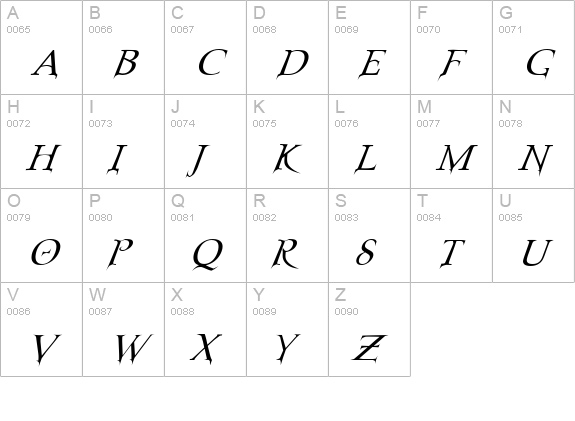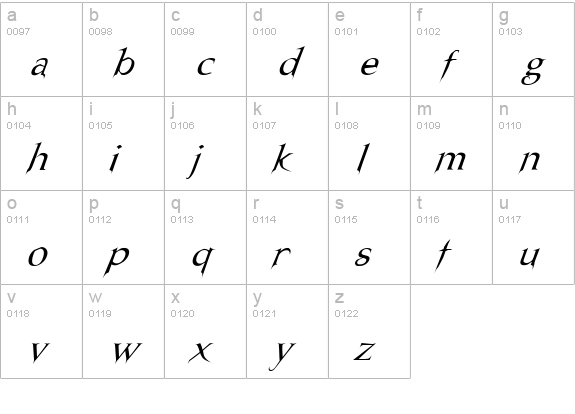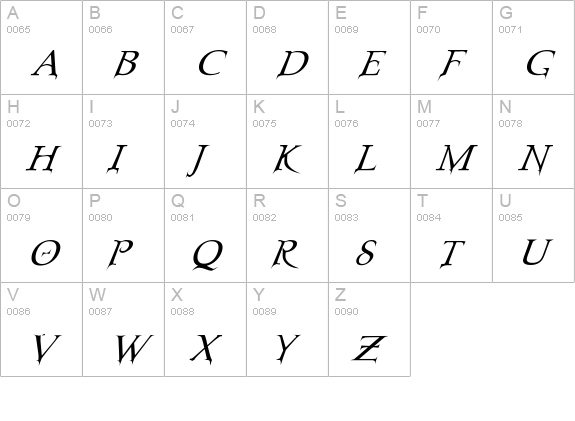
Nosferatu Oblique Font Details
Nosferatu Oblique is a distinctive, italic variant in the Nosferatu typeface family \xE2\x80\x94 well suited to design and typography projects.
Introducing Nosferatu Oblique font, a hauntingly beautiful typeface that exudes mystery and intrigue. Inspired by the classic horror genre, this font features sharp, angular lines and a slanted design that gives it a unique and edgy look. Perfect for adding a touch of darkness to your designs, Nosferatu Oblique font is sure to make a bold statement. What makes this font even more enticing is that it is completely free to download at FontsMarket.com. Whether you're working on a spooky Halloween project or want to add a touch of gothic flair to your designs, Nosferatu Oblique font is the perfect choice. With its striking appearance and eerie vibe, this font is sure to capture attention and leave a lasting impression. Download it today and unleash your creativity with this captivating typeface.